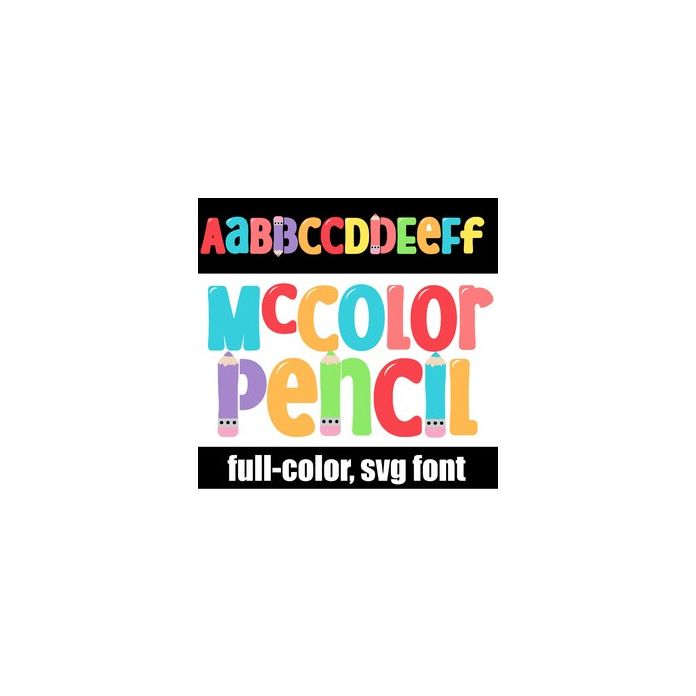
This full-color font features colored pencils throughout. There is an alt case with additional colors that you can access through your system or Silhouette's glyph map.